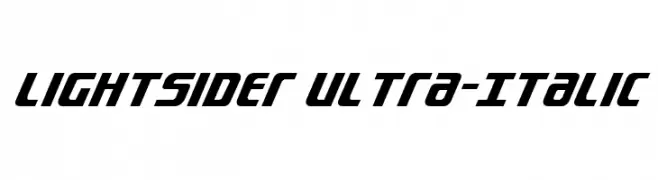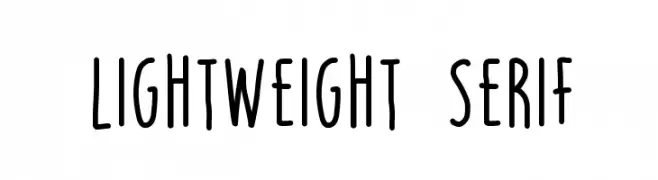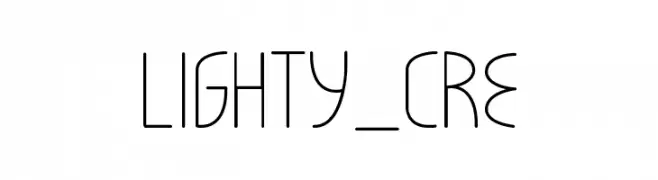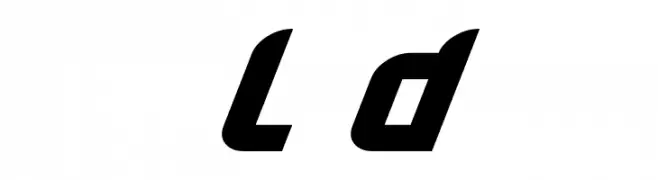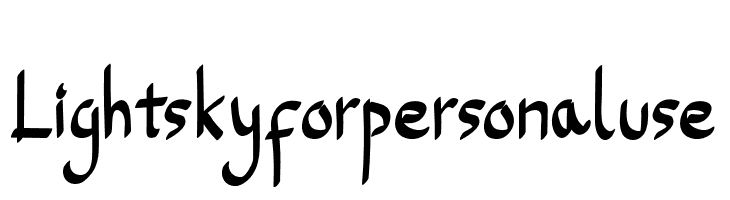
A bold, slanted, futuristic font with geometric and angular characters.
A bold, italic, and modern font with a dynamic, futuristic style.
A playful, handwritten font with dynamic strokes and a casual style.
A dynamic, edgy script font with sharp, angular strokes and a modern flair.
An ornate, medieval-inspired font with decorative curves and elegant serifs.
A playful, hand-drawn font with irregular strokes and a whimsical style.
A playful, handwritten font with tall, narrow letterforms and smooth strokes.
A modern, geometric font with thin lines and a sleek, minimalistic style.
A bold, futuristic font with angular shapes and a slanted design.